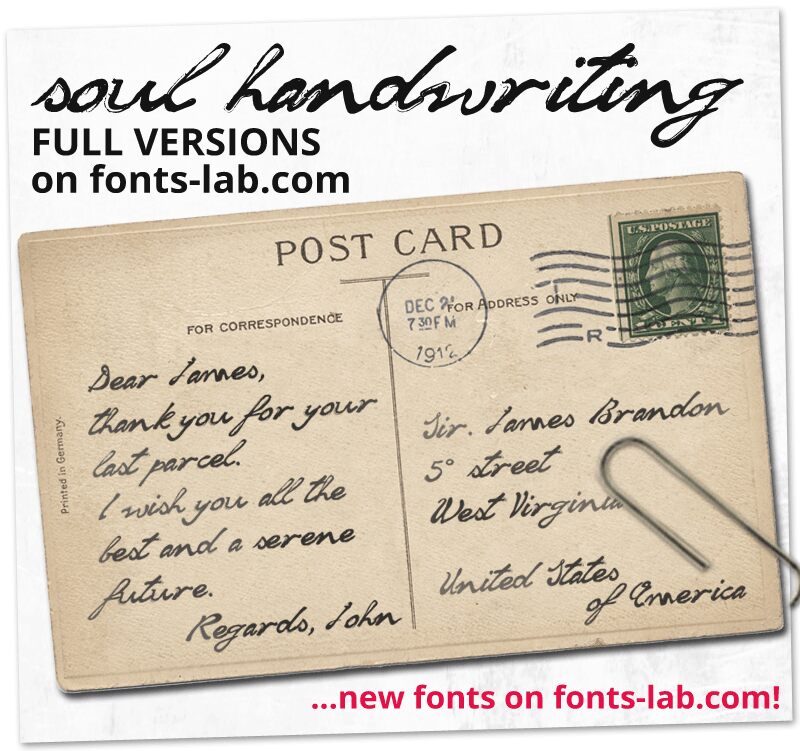
Soul Handwriting from Fonts Lab is a free brush script with sweeping, oversized strokes and a fast, signature-like silhouette. Its sharp changes in width, long looping joins, and dry, roughened edges make the lettering look forceful and physically drawn.
It is strongest in music branding, where the broad gestures can turn an artist name into the main graphic on album covers, tour posters, and merchandise. Fashion packaging and nightlife event graphics also suit its restless movement, with the same sweeping lines directly linking typography to expressive photography or gestural artwork.